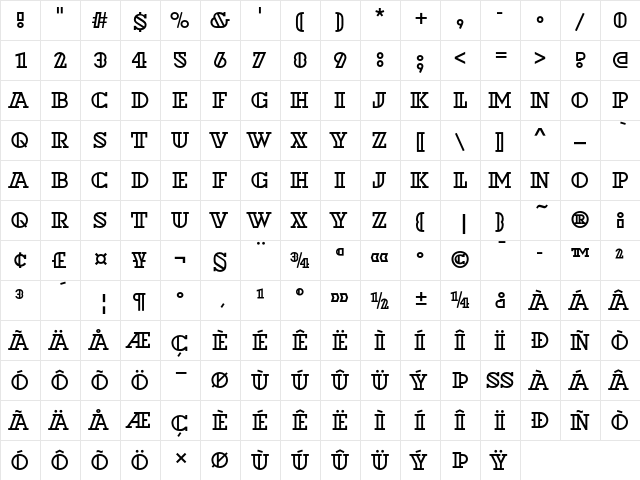
Dextor Outline D Regular
Design Context for Dextor Outline D Typeface
Dextor Outline D is built around its visual character rather than neutral utility — its distinctive forms are designed to make an impression at display sizes.
Font Pairing: Pair with a clean neutral sans-serif for body copy to let Dextor Outline D's character lead without overwhelming the composition.
Pro Tip: Treat Dextor Outline D as the centrepiece of your typographic hierarchy. One strong heading set in a decorative face can carry an entire layout.